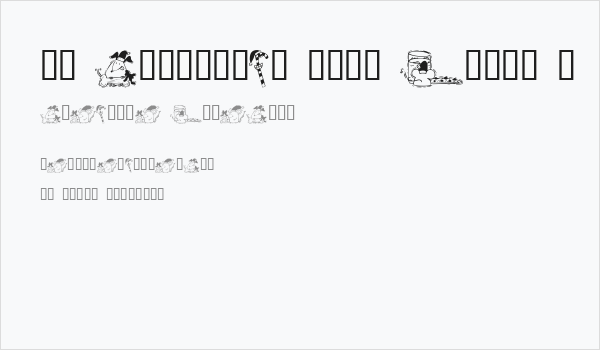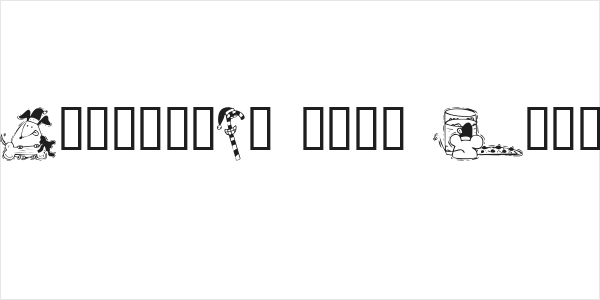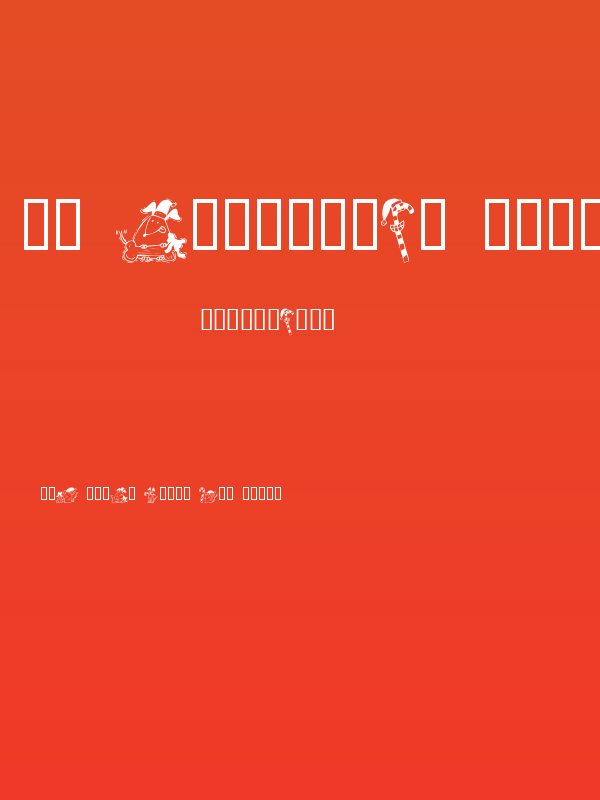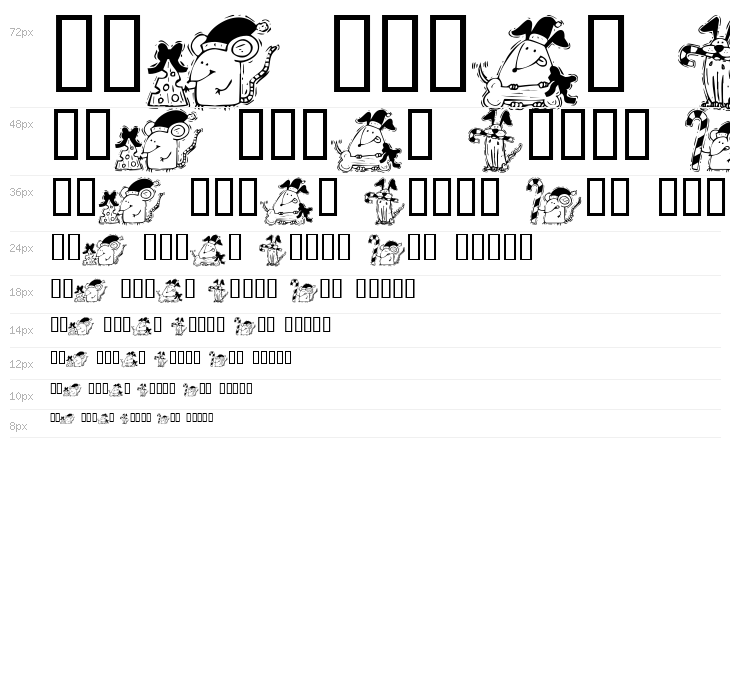
KR Christmas 2002 Dings 3 Font
KR Christmas 2002 Dings 3 Description
This decorative font is filled with whimsical Christmas-themed illustrations, featuring playful characters such as mice in Santa hats, candy canes, and festive elements like gifts and stockings. Each character is uniquely designed to convey a sense of holiday cheer and fun, making it perfect for festive occasions. The illustrations are detailed and cartoonish, capturing the joyful spirit of Christmas with a touch of humor and charm.
Use CaseLogos, Headlines, Decorative elements
Proposed ProjectsIdeal for holiday greeting cards, festive event invitations, Christmas-themed posters, and seasonal decorations.